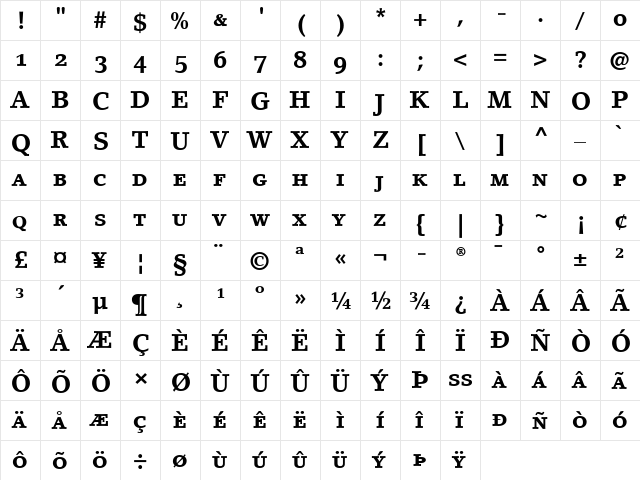
LinoLetter RomanSC Bold Font Preview
LinoLetter RomanSC Bold
Design Context for LinoLetter RomanSC Typeface
LinoLetter RomanSC takes a measured approach to typography — its balanced proportions and neutral character make it a reliable workhorse for both digital and print work. The heavy weight commands attention and anchors typographic hierarchies.